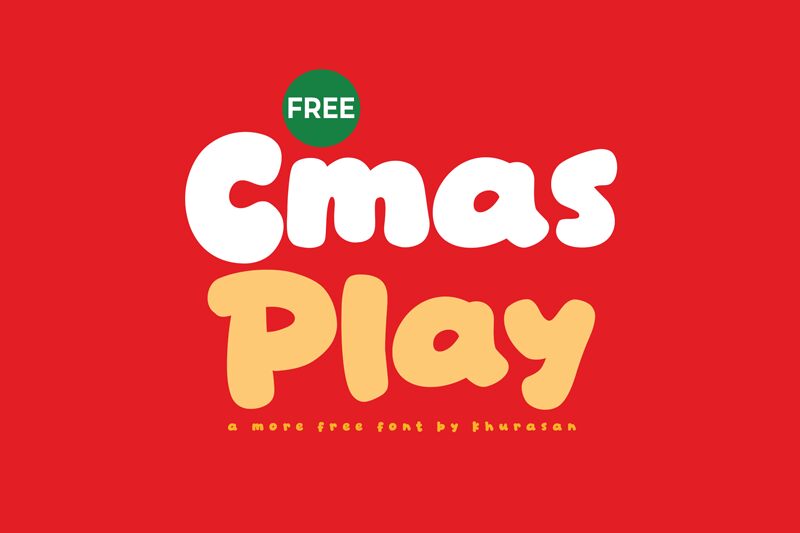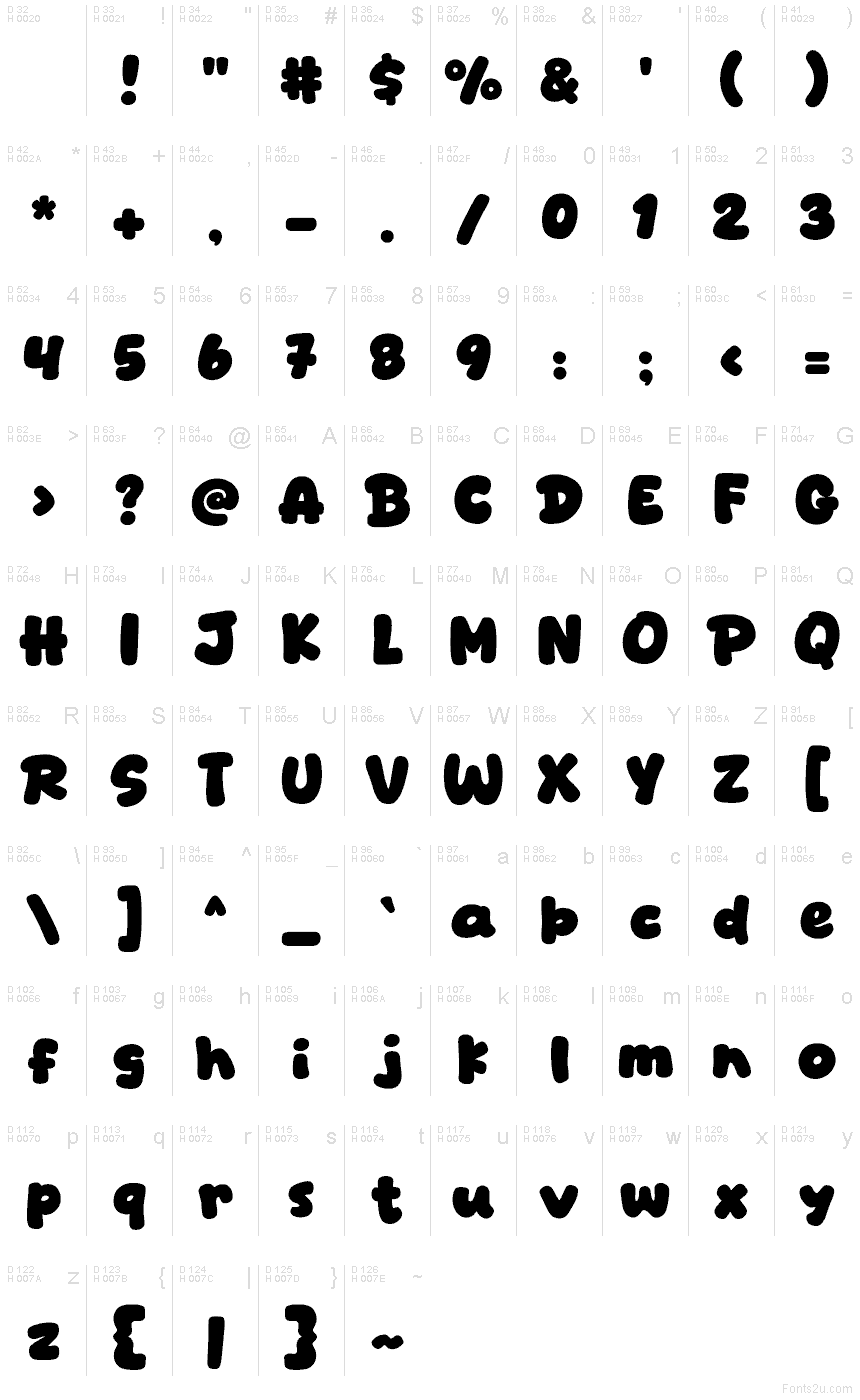
Cmas Play
Cmas Play font by Khurasan is a free cartoon display typeface that feels like puffy lettering cut from soft foam. The chunky, rounded shapes and slightly wobbly rhythm give it that hand-drawn, sugar-cookie energy that jumps off the page. Letters sit close and cozy, creating bold word shapes that read fast even at a glance, like signage on a toy store window.
This free font shines on kids’ book covers, Christmas party invitations, classroom posters, YouTube thumbnails, game titles, and playful sticker designs. Using Cmas Play at large sizes lets the bubbly curves and inky silhouettes really show their character. Pair it with a clean, light sans-serif for supporting text to keep layouts readable while letting the cartoony headline steal the spotlight.